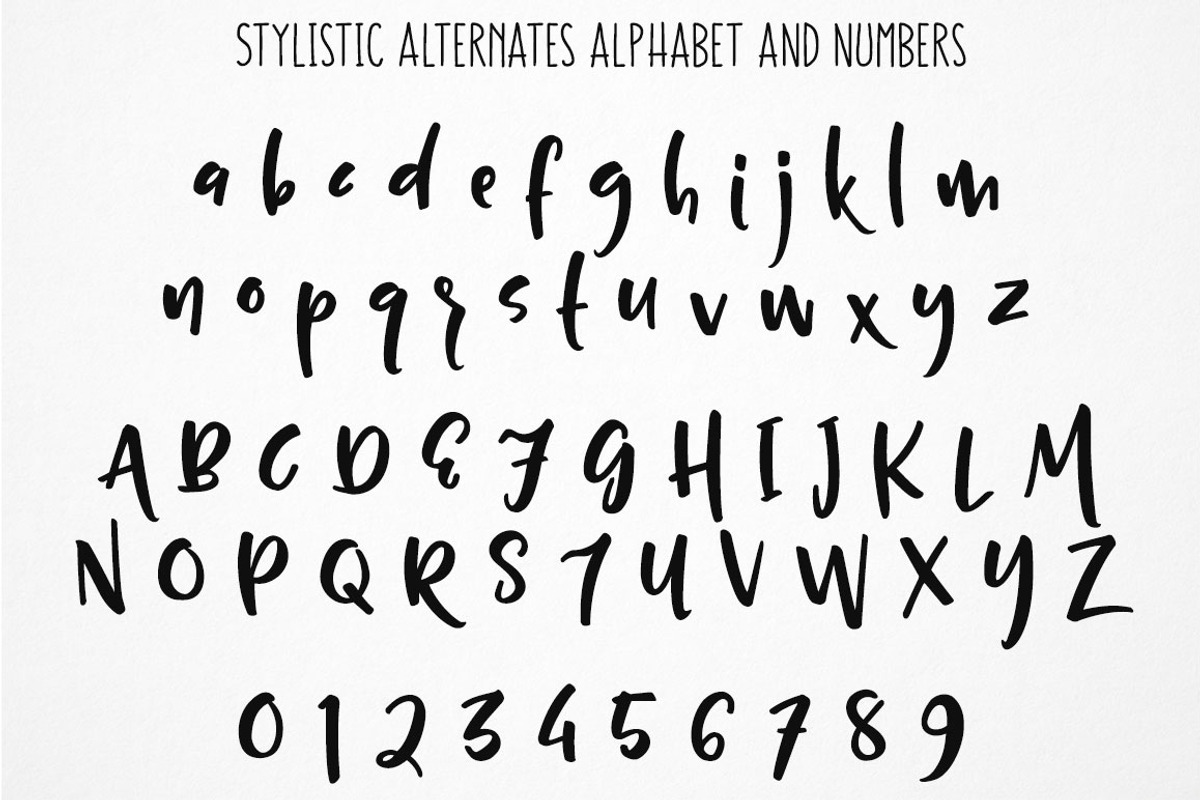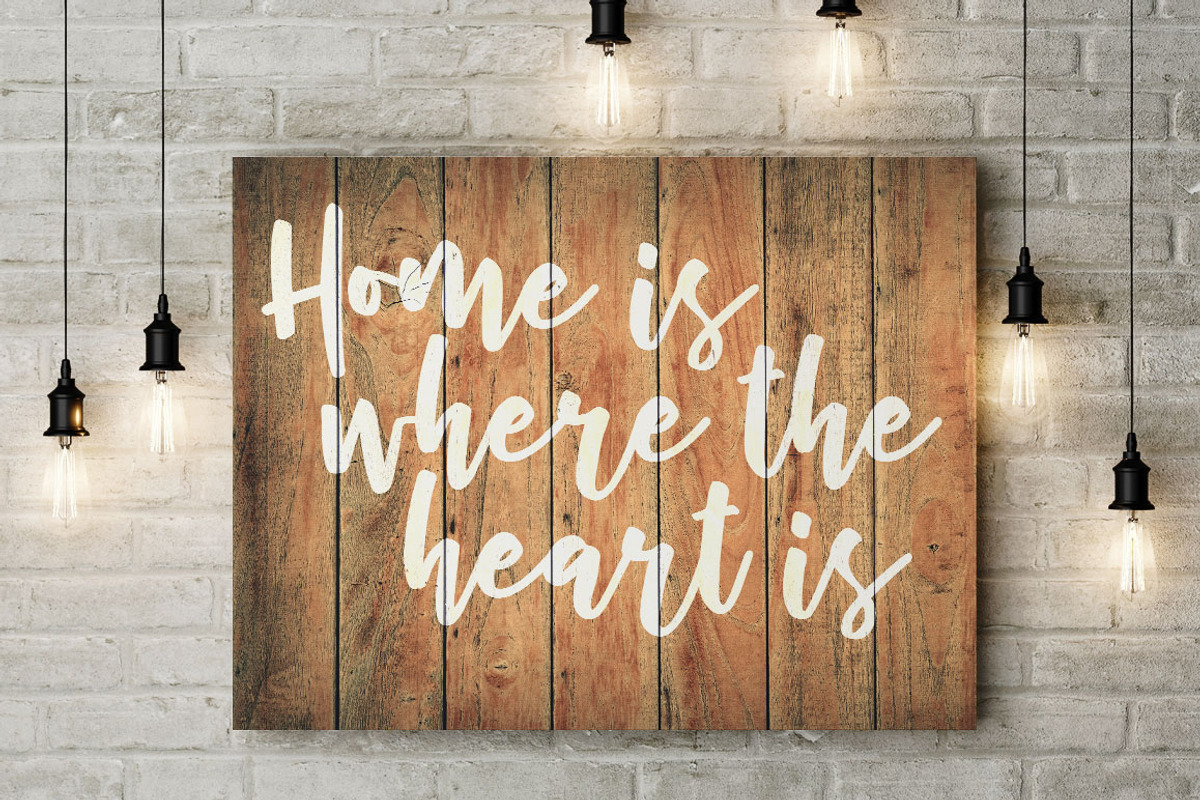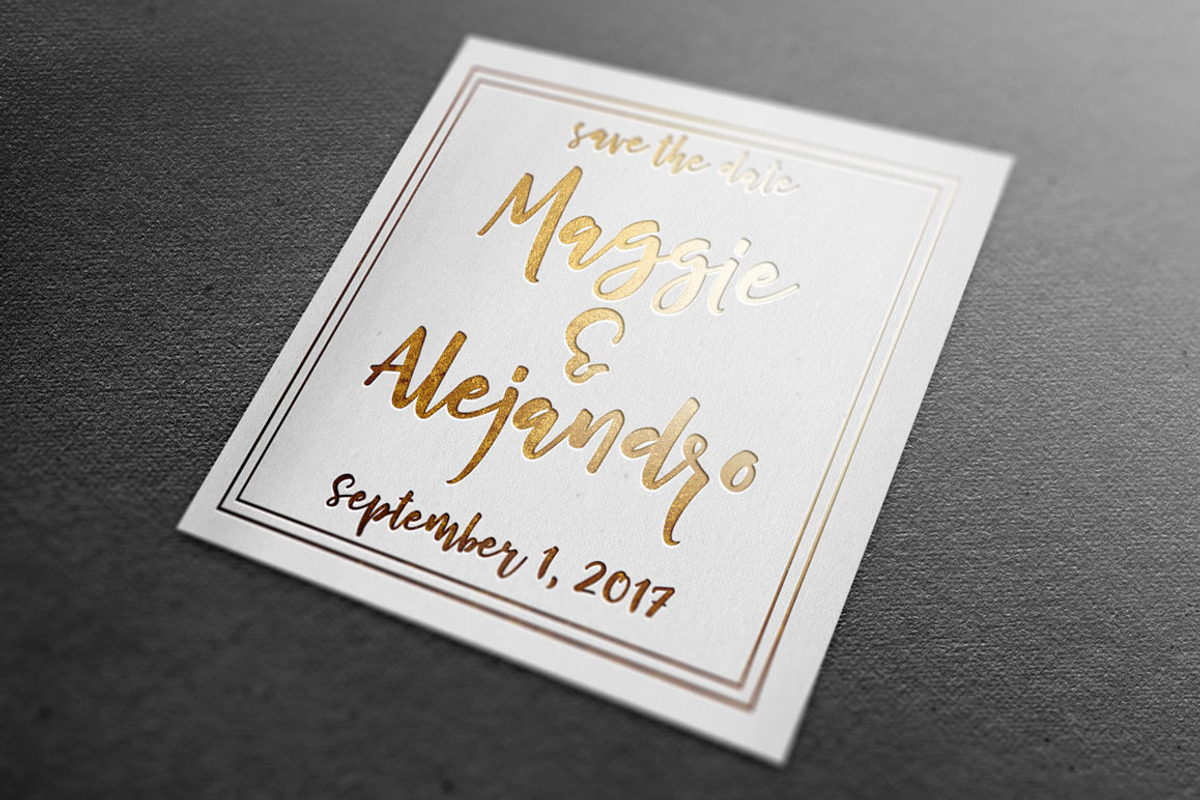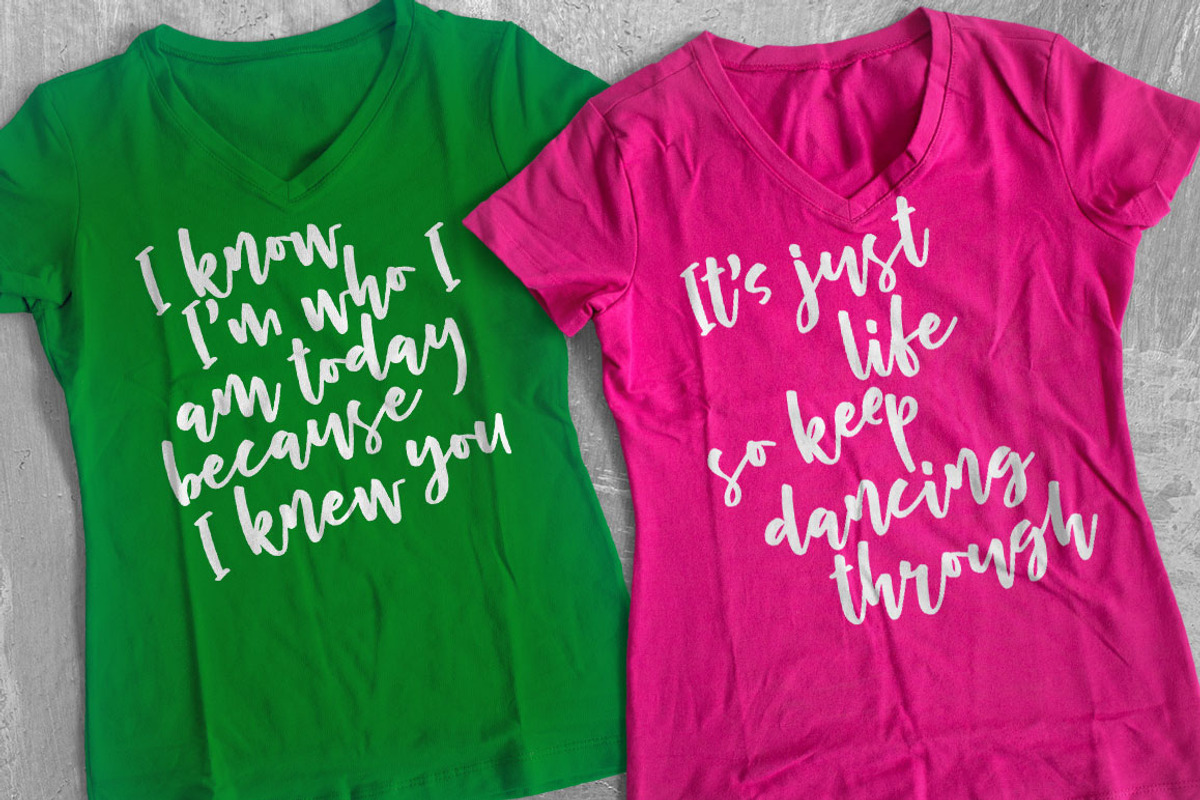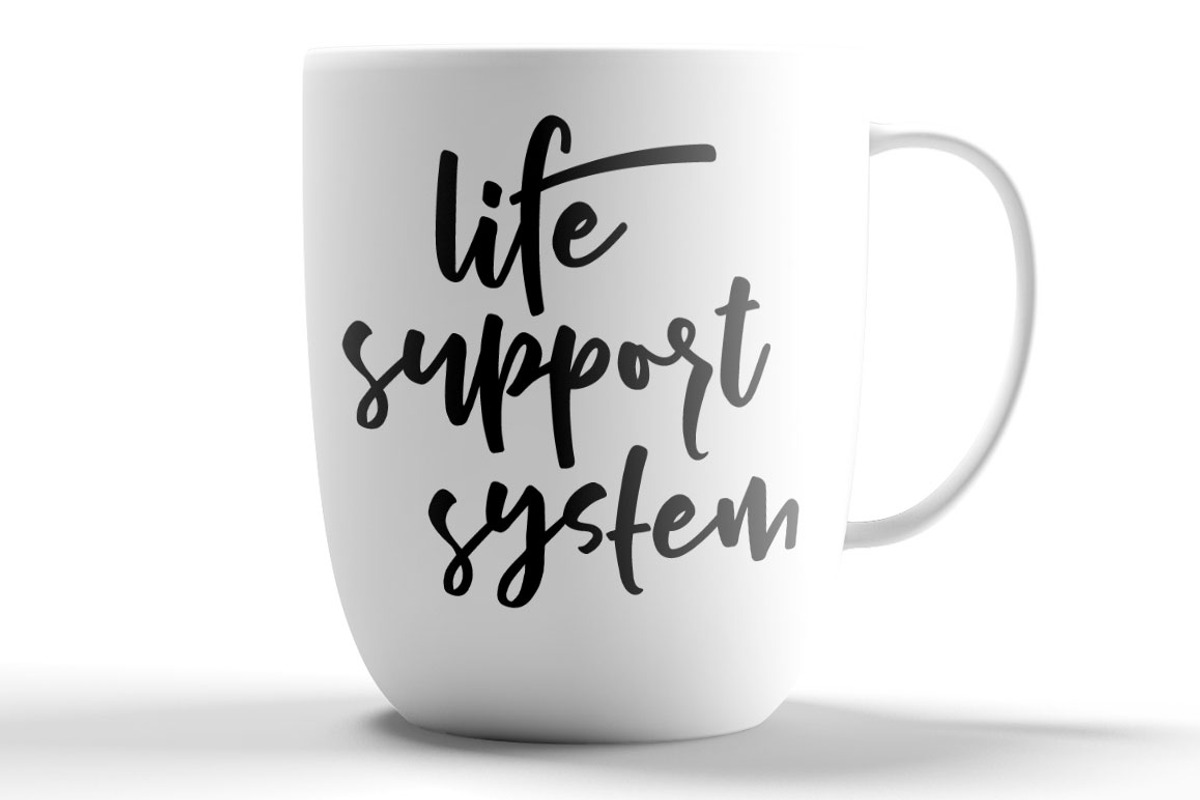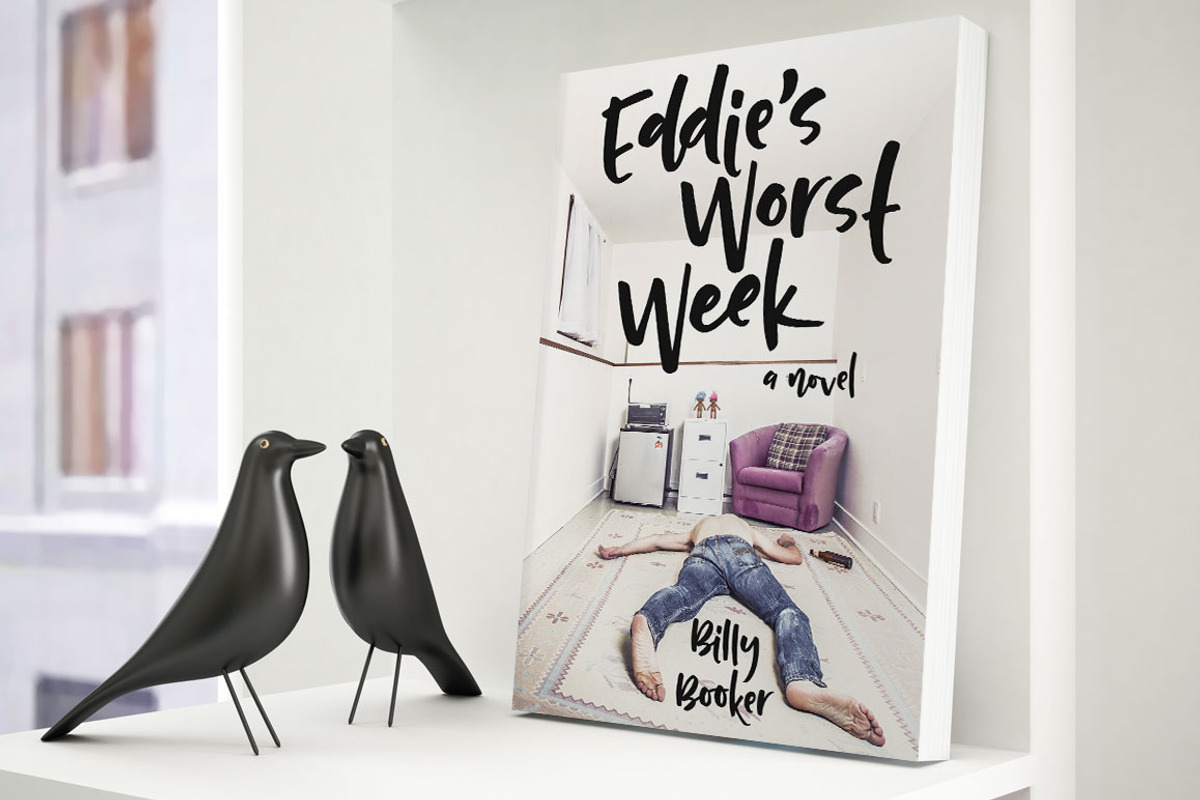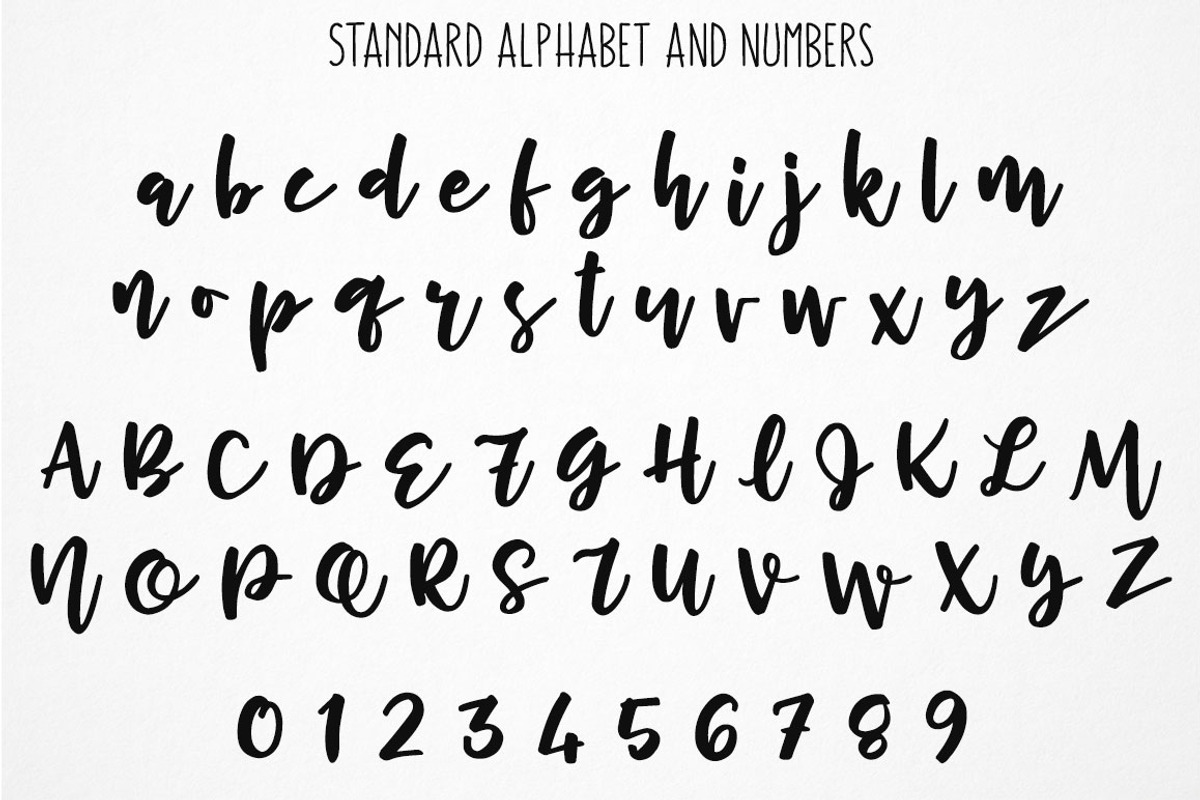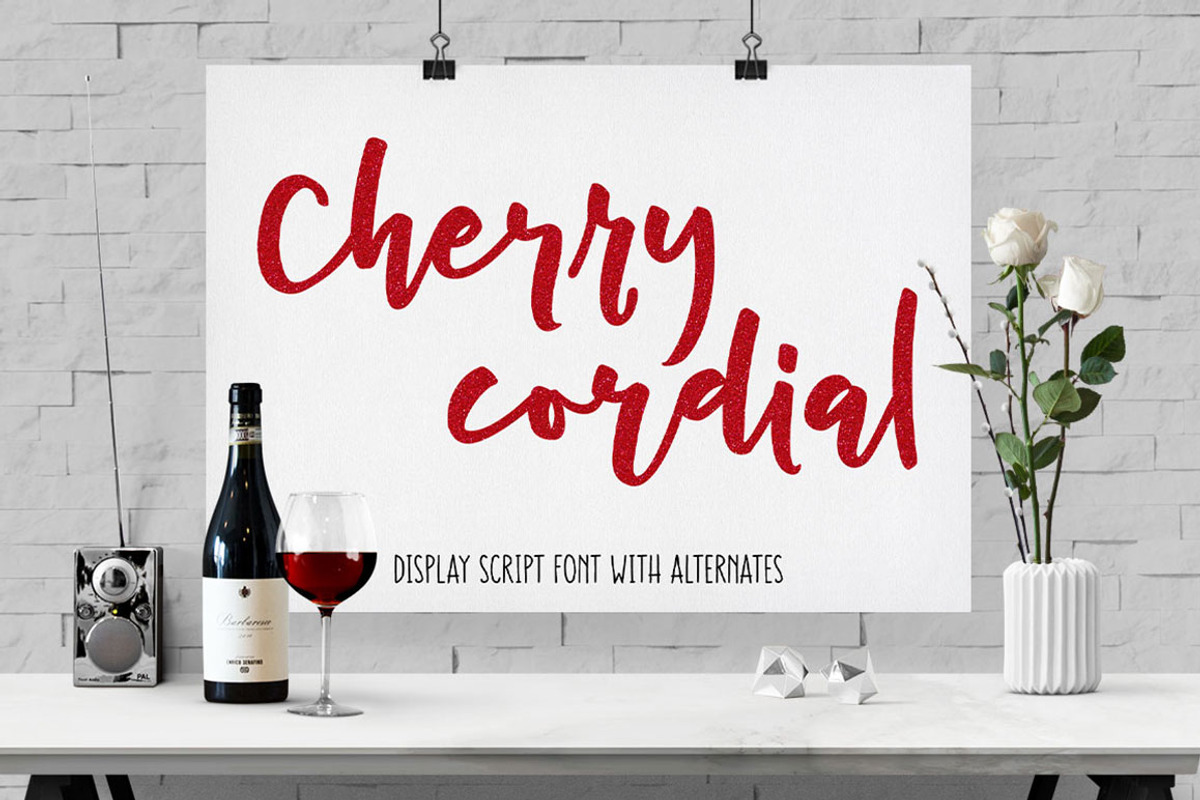
Cherry Cordial: display script font
Cherry Cordial: display script font by Missy Meyer is a font selected for branding, posters, packaging, typography.
- It also comes with a number of flourish characters, as well as even more alternates for some letters to add extra drama to your work.
- Cherry Cordial contains a full set of punctuation, over 35 ligatures, and over 200 accented characters for language support.
- Cherry Cordial includes: Standard uppercase and lowercase alphabets Full stylistic alternate alphabet and number set (coded into the main fi
- Introducing Cherry Cordial, a new connecting script font with a full second alphabet of print characters, so you can mix and match for a uni
Why Cherry Cordial: display script font is worth a look
Cherry Cordial: display script font by Missy Meyer fits naturally into Branding, posters, packaging, typography.